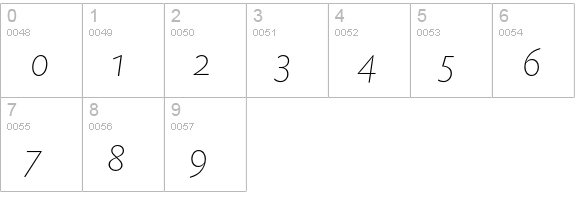
Today Sans Serif Caps Extra Light Italic Font Details
Today Sans Serif Caps Extra Light Italic is a refined, elegant, italic variant in the Today typeface family \xE2\x80\x94 well suited to elegant body text, refined sub-headings, and luxury branding.
Today Sans Serif Caps Extra Light Italic font is a sleek and modern typeface that exudes an air of sophistication and elegance. With its clean lines and minimalistic design, it adds a touch of refinement to any project. The extra light weight of this font allows for a delicate and ethereal appearance, making it perfect for designs that require a subtle and understated aesthetic. The italic style adds a touch of flair and movement, lending a sense of dynamism to your text. This font is not only visually appealing, but it also offers practicality and versatility. Its legibility ensures that your message will be easily understood, while its versatility allows it to be used in a wide range of applications, including branding, packaging, editorial design, and more. One of the most appealing aspects of Today Sans Serif Caps Extra Light Italic font is that it is free. Yes, you read that right - it is freely available to download at FontsMarket.com. This means that you can enhance your designs without breaking the bank. Whether you are a professional designer or a hobbyist, this font offers a high-quality option that won't cost you a dime. So why wait? Head over to FontsMarket.com and experience the beauty and functionality of Today Sans Serif Caps Extra Light Italic font. Download it today and elevate your designs to new heights.